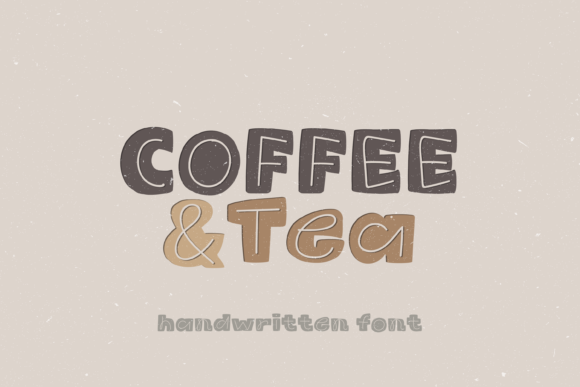
Immerse yourself in the realm of creativity with Coffee & Tea Font, a whimsical and playful display font that will captivate your imagination. Inspired by the aromatic blend of coffee and the soothing warmth of tea, this font exudes a unique charm that will add a touch of magic to your designs.
Crafted with meticulous attention to detail, Coffee & Tea Font boasts a delightful contrast between thick and thin strokes, creating a visually striking and dynamic effect. Its layered design adds depth and dimension to your words, making them leap off the page and dance before your eyes.
With its versatility, Coffee & Tea Font effortlessly adapts to a wide range of creative projects. From whimsical invitations and playful branding to enchanting children's books and captivating social media posts, this font is your trusty companion, ready to transform your ideas into visual masterpieces.
Unleash your inner child and let Coffee & Tea Font ignite your imagination. Its playful and lighthearted nature is perfect for projects that demand a touch of whimsy and wonder. Bring your stories to life with characters that jump off the page and illustrations that transport readers to faraway lands.
With Coffee & Tea Font, the possibilities are endless. Let your creativity soar as you explore new design horizons. Its enchanting aura will add a touch of magic to your projects, leaving a lasting impression on your audience.
So, embark on an artistic journey with Coffee & Tea Font, and discover the joy of creating designs that resonate with your audience. Let your imagination run wild and let this font guide you towards a world of endless creative possibilities.